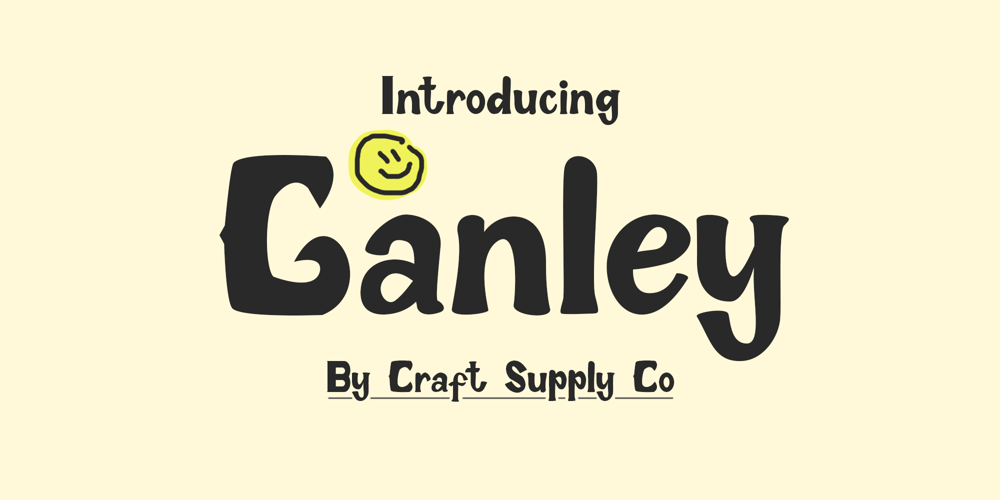
Ganley Font Family was designed by Trio Nazzar Saputra, Wahyu Hadi Yuana and published by Craft Supply Co. Ganley contains 1 styles and family package options. Introducing Ganley Cute FontGanley cute font is a contemporary display font that radiates fun and playfulness, making it perfect for children’s themes and light-hearted designs.Playful DesignGanley’s design is characterized by whimsical and cheerful letterforms. Its cute and quirky appearance instantly adds a touch of joy to any project. The font embodies a sense of innocence and laughter.Child-Friendly ReadabilityThis font maintains readability while embracing a delightful style. The letter spacing and proportions are thoughtfully crafted for easy comprehension, ensuring that children can enjoy reading and interacting with it.Versatility in DesignGanley isn’t limited to just one application. It’s a versatile font that suits various creative endeavors, from children’s books and posters to party invitations and websites. Its adaptability knows no bounds.